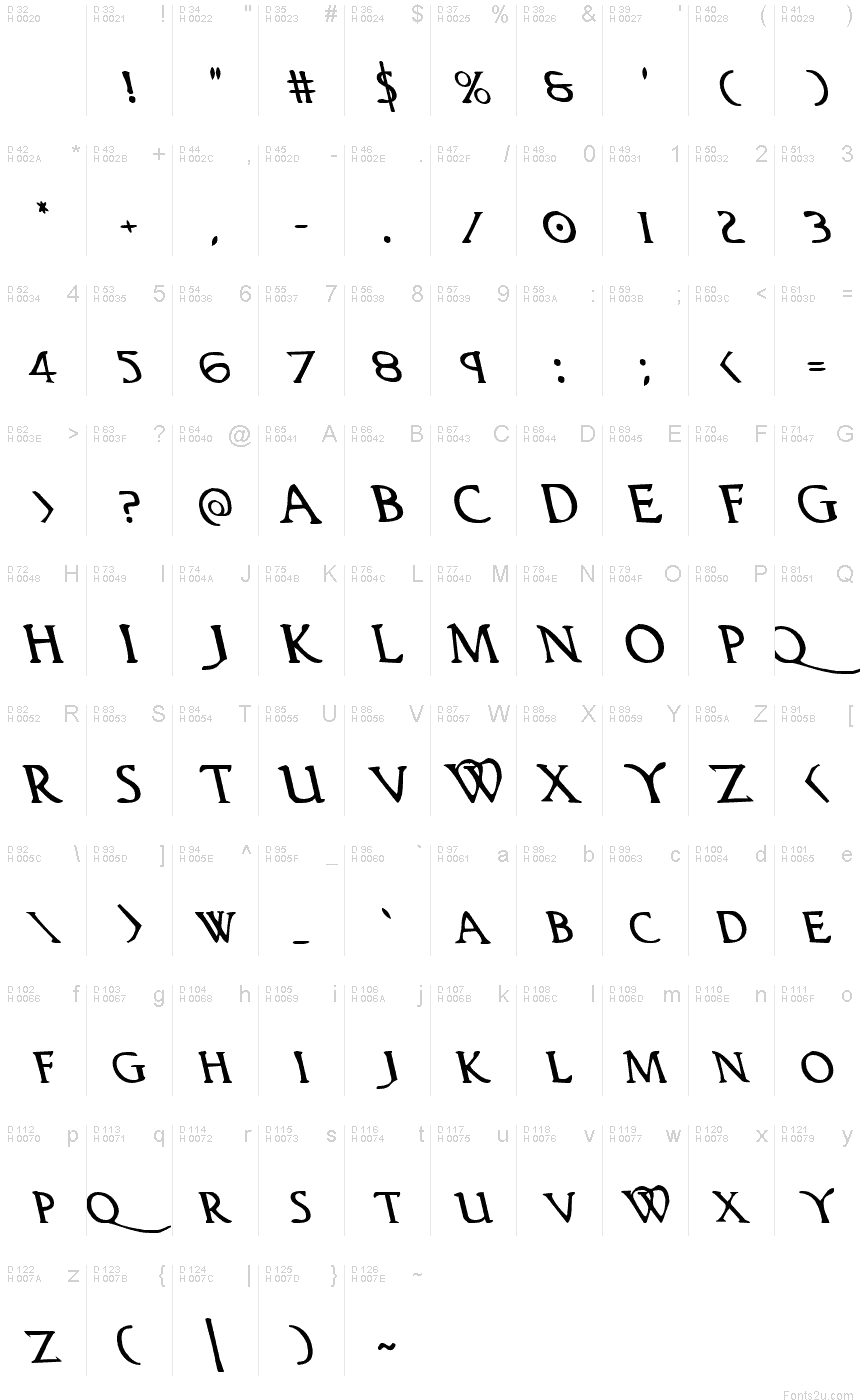
Woodgod Leftalic by Iconian Fonts is a free old-school display font with sharply cut serifs and a restless, hand-shaped silhouette. Its uneven stroke widths, hooked details, and slight backward lean give the capitals the look of carved storybook lettering.
Folklore and woodland themes are its clearest territory in fantasy books and role-playing games. The thorny shapes also suit festival posters and drink packaging. In each setting, the letters suggest enchanted forests, old tavern signs, or mischievous fairy tales.
Prezentacja i próbka wizualna czcionki Woodgod Leftalic
Mapa znaków czcionki Woodgod Leftalic
Mapa znaków czcionki Woodgod Leftalic: Podstawowy łaciński, strona 1
Glify czcionki Woodgod Leftalic — Podstawowy łaciński, strona 1
Woodgod Leftalic